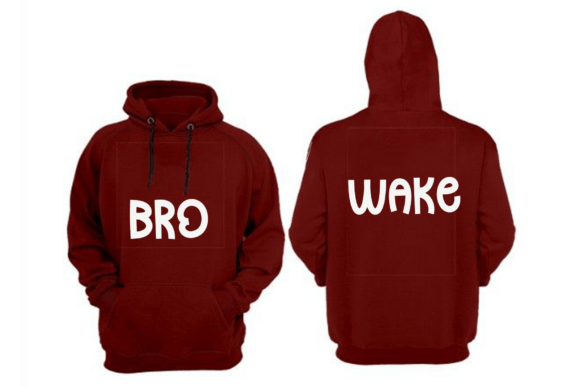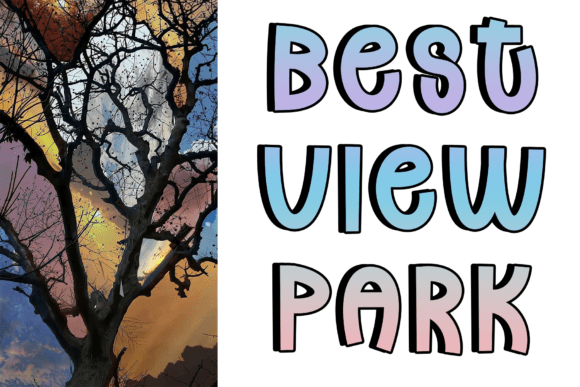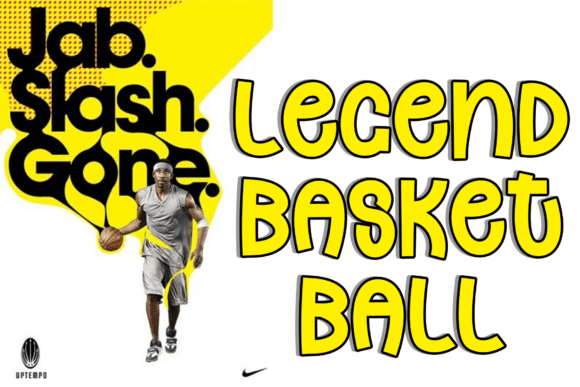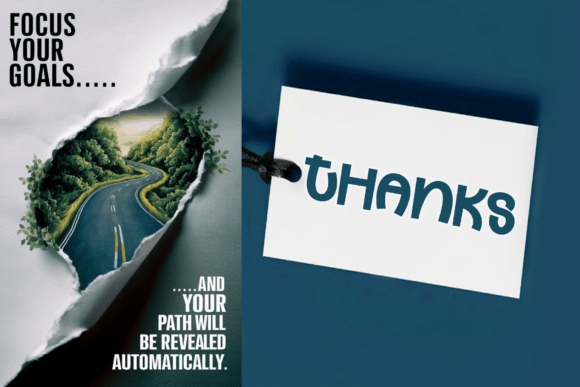
Introducing Country Font: The Perfect Blend of Casual and Creative
Are you looking for a font that can add a touch of warmth and friendliness to your designs? Look no further than Country Font, a casual and creative typeface that exudes a relaxed and approachable feel. With its round, playful strokes, Country Font is perfect for personal projects, invitations, and social media graphics.
The Charm of Country Font
Country Font boasts a charming, hand-drawn aesthetic that adds a fun and unique touch to any design. Its casual and creative vibe makes it an excellent choice for designers and crafters who want to create a laid-back and inviting atmosphere in their work. Whether you’re designing a wedding invitation, a social media post, or a personal blog, Country Font is sure to bring a smile to your audience’s faces.
Key Features of Country Font
- Round and Playful Strokes: Country Font’s rounded strokes give it a soft and friendly feel, making it perfect for designs that require a personal touch.
- Hand-Drawn Aesthetic: The font’s hand-drawn look adds a unique and creative touch to any design, setting it apart from more traditional typefaces.
- Casual and Approachable: Country Font’s relaxed vibe makes it ideal for personal projects, invitations, and social media graphics.
Uses for Country Font
Country Font’s versatility makes it suitable for a wide range of design applications. Here are some ideas to get you started:
- Personal Projects: Use Country Font to add a personal touch to your blog, journal, or scrapbook.
- Invitations: Create beautiful and unique invitations for weddings, parties, and other special events.
- Social Media Graphics: Add a touch of warmth and friendliness to your social media posts with Country Font.
- Crafting and DIY Projects: Use Country Font to create labels, signs, and other decorative elements for your crafting and DIY projects.
Tips for Using Country Font
To get the most out of Country Font, here are some tips to keep in mind:
- Pair with Other Fonts: Combine Country Font with other fonts to create a unique and visually appealing design.
- Experiment with Colors: Try out different color schemes to find the perfect match for your design.
- Keep it Simple: Don’t be afraid to keep your design simple and clean to let Country Font shine.
Country Font is a unique and creative typeface that can add a touch of warmth and friendliness to any design. With its round, playful strokes and charming, hand-drawn aesthetic, it’s perfect for personal projects, invitations, and social media graphics. Whether you’re a designer or crafter, Country Font is sure to become a favorite in your toolkit.